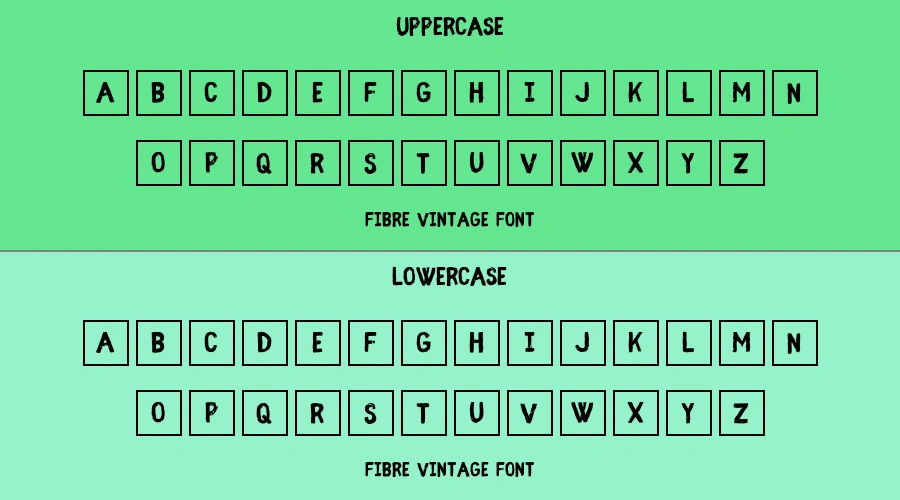
About Fibre Vintage Font
Fibre Vintage Font stands out for its distinctive combination of pressure variations and aesthetic balance. Ideal for print publications, it provides the expressiveness and technical mastery that professional projects demand. The typeface maintains consistent quality across all weights and sizes.
Key features include refined tapered strokes and practical mid-word alternates, enhancing typographic expression. In brand logos applications, Fibre Vintage Font demonstrates exceptional file efficiency. The stroke modulation and technical innovation contribute to its distinctive character and professional appeal.